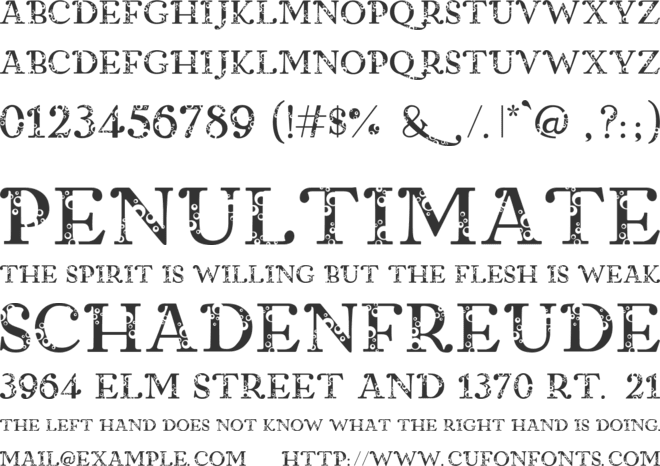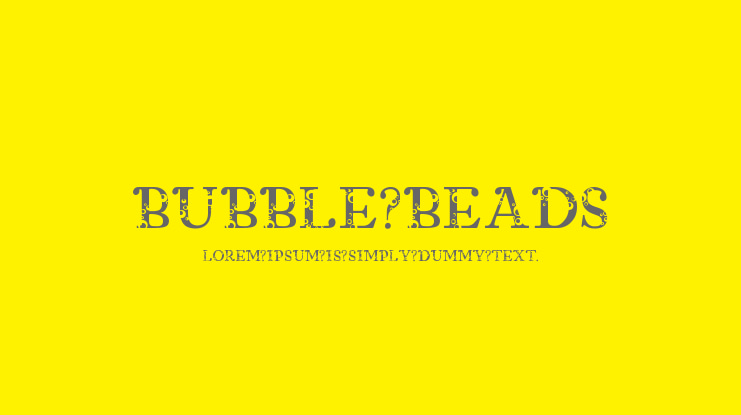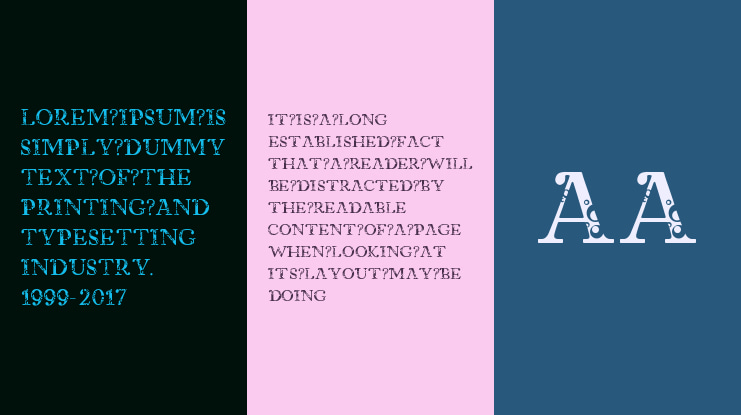
Bubble Beads Font
Judith Tan
The perfect balance between formal & quirk, Bubble Beads is a header typeface ideal for a wide variety of occasions.
Experimenting with object fonts, the designer made letters by bunching little beads together, which later became the inspiration for Bubble Beads.
Unique features of Bubble Beads are the knocked-out bubble/bead type shapes, as well as the cute rounded serif which appears once on every character (with the exception of O,o,0 and some special characters)